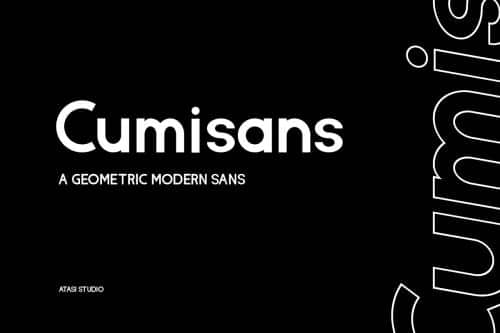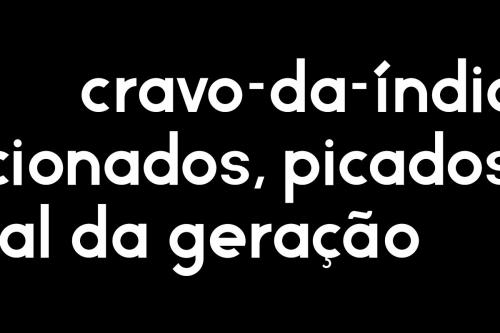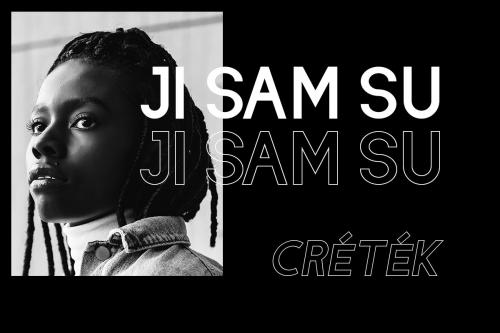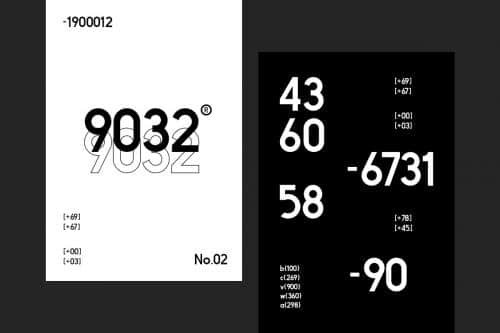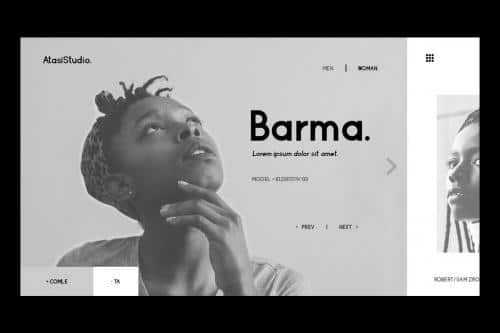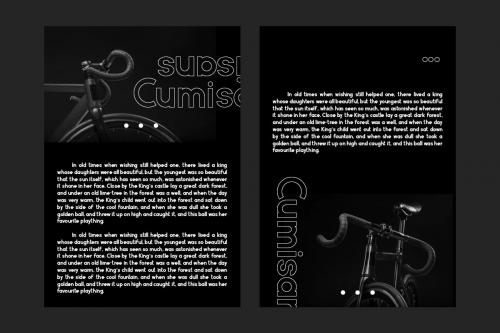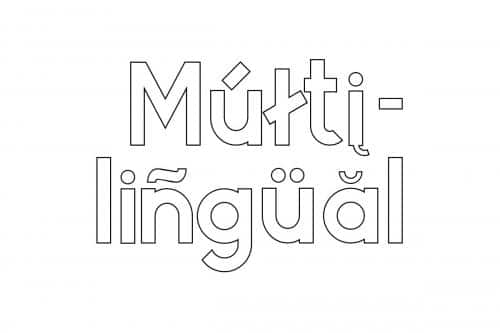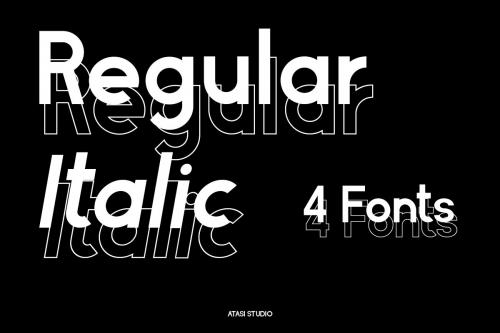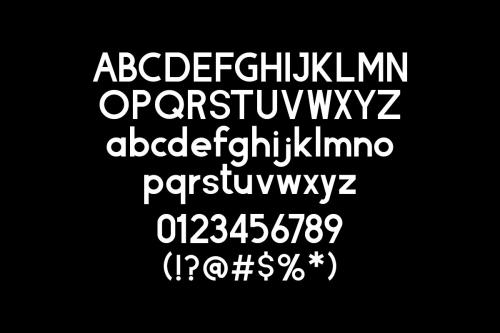
CUMISANS is a geometric modern sans font with a strong look and powerful. CUMISANS is ready and Perfectly fit for your logo designs, headline, music projects & social media posts, event poster, brand imagery, product packaging, quotes, merchandise, etc. More importantly, please don’t hesitate to drop me a message if you have any issues or queries.